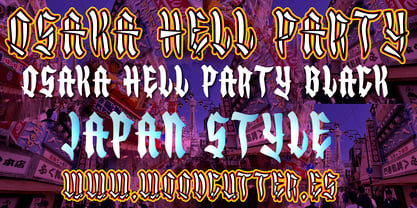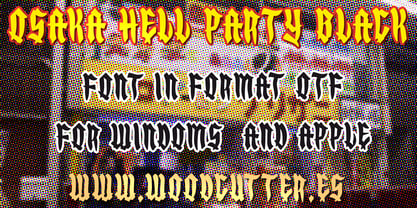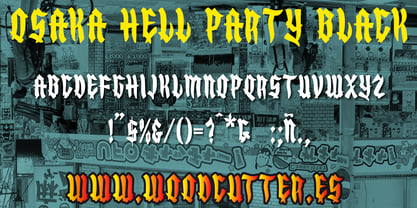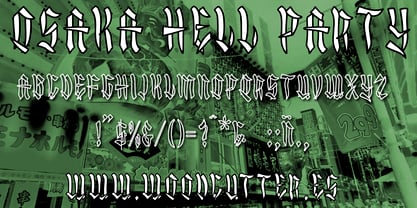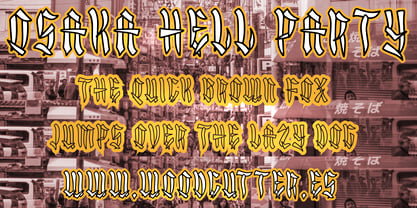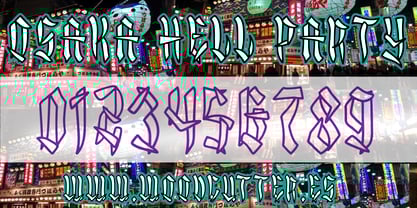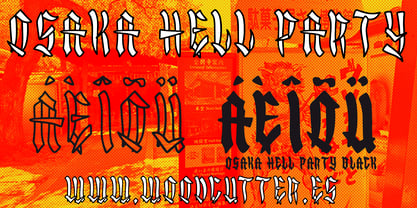
Osaka Hell Party
by Woodcutter
The Osaka Hell Party Font Family was designed by Jordi Manero and published by Woodcutter. Osaka Hell Party contains 2 styles and family package options. More about this family
Osaka Hell Party is a type family in uppercase with accents, designed to convey a unique aesthetic that blends Japanese-style calligraphy with a subtle gothic twist. Its appearance recalls the energetic, expressive strokes of traditional brushes, transformed into bold and dramatic letters that evoke strength, mysticism, and visual rebellion. This fusion makes it a striking font, perfect for projects seeking a strong and distinctive identity, from alternative posters to covers with a dark and exotic atmosphere.
The family includes two variants:
Osaka Hell Party Black, the solid version, with compact, heavy letters that deliver strong visual impact, ideal for logos, bold graphic projects, or attention-grabbing titles.
Osaka Hell Party, the outline version, which brings dynamism and a more experimental spirit, keeping the same oriental-gothic essence but offering a more open and versatile look.
Both fonts preserve the essence of oriental fused with gothic, allowing designers to play between the mysterious and the elegant, the decorative and the aggressive. Osaka Hell Party is ideal for alternative branding, music covers, horror posters, or underground-themed visuals. A family that merges tradition, darkness, and modernity into one powerful design concept.